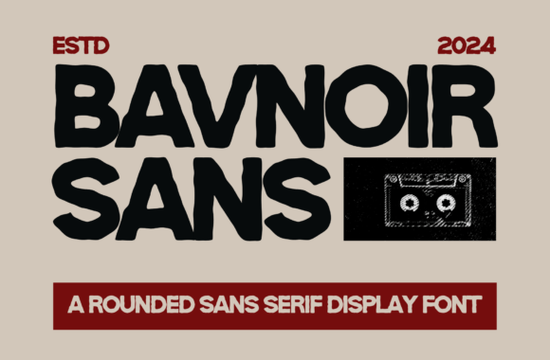
Bavnoir Font is a standout choice for anyone looking to add a modern, playful touch to their design projects. This rounded sans serif display font has a strong and friendly character that makes it ideal for a variety of creative uses. With thick strokes and smooth rounded edges, Bavnoir delivers a bold visual impact that can make any design stand out. Whether you're working on logos, branding, posters, or social media content, this font offers a versatile and eye-catching solution.
One of the key strengths of Bavnoir is its ability to balance modern aesthetics with a fun personality. The heavy style of the font gives it a confident presence, while the friendly shapes keep it approachable. This combination makes it perfect for projects that need both professionalism and a touch of creativity. Its clean lines and rounded forms also ensure it looks great in both digital and print formats.
What Makes Bavnoir Unique?
Bavnoir stands out from other fonts due to its distinctive style and adaptability. Unlike more rigid sans serifs, Bavnoir’s rounded edges give it a softer, more inviting feel. This makes it especially useful for designs that aim to convey warmth or energy. The font’s thick strokes add weight and visibility, making it an excellent choice for headlines and titles where impact matters most.
For designers who want to experiment with different styles, Bavnoir offers a fresh alternative to traditional fonts. It works well in both minimalist and bold layouts, allowing for flexibility without sacrificing clarity. Its versatility means it can be used across multiple platforms, from website headers to product packaging, ensuring a cohesive look throughout your brand’s visual identity.
Best Uses for Bavnoir Font
Whether you're a graphic designer, a small business owner, or a creative hobbyist, Bavnoir can enhance your work in several ways. For logos and branding, the font’s strong yet friendly appearance helps create a memorable and professional image. In posters and advertisements, its boldness draws attention and conveys energy. Social media content benefits from its readability and visual appeal, making it easier to engage audiences.
Print-on-demand sellers will appreciate how Bavnoir adds a unique touch to t-shirts, mugs, and other products. Its clear, legible structure ensures that text remains easy to read even at smaller sizes. For crafters and DIY enthusiasts, the font can bring a modern flair to handmade items, giving them a polished and professional look.
When choosing a font for your next project, consider how it aligns with your overall design goals. Bavnoir is a great option if you want something that feels both modern and approachable. Its combination of strength and playfulness makes it suitable for a wide range of applications, from professional branding to personal creative projects.
Take a moment to explore Bavnoir and see how it can elevate your next project. With its bold style and friendly character, it's a font that brings both personality and professionalism to your work.